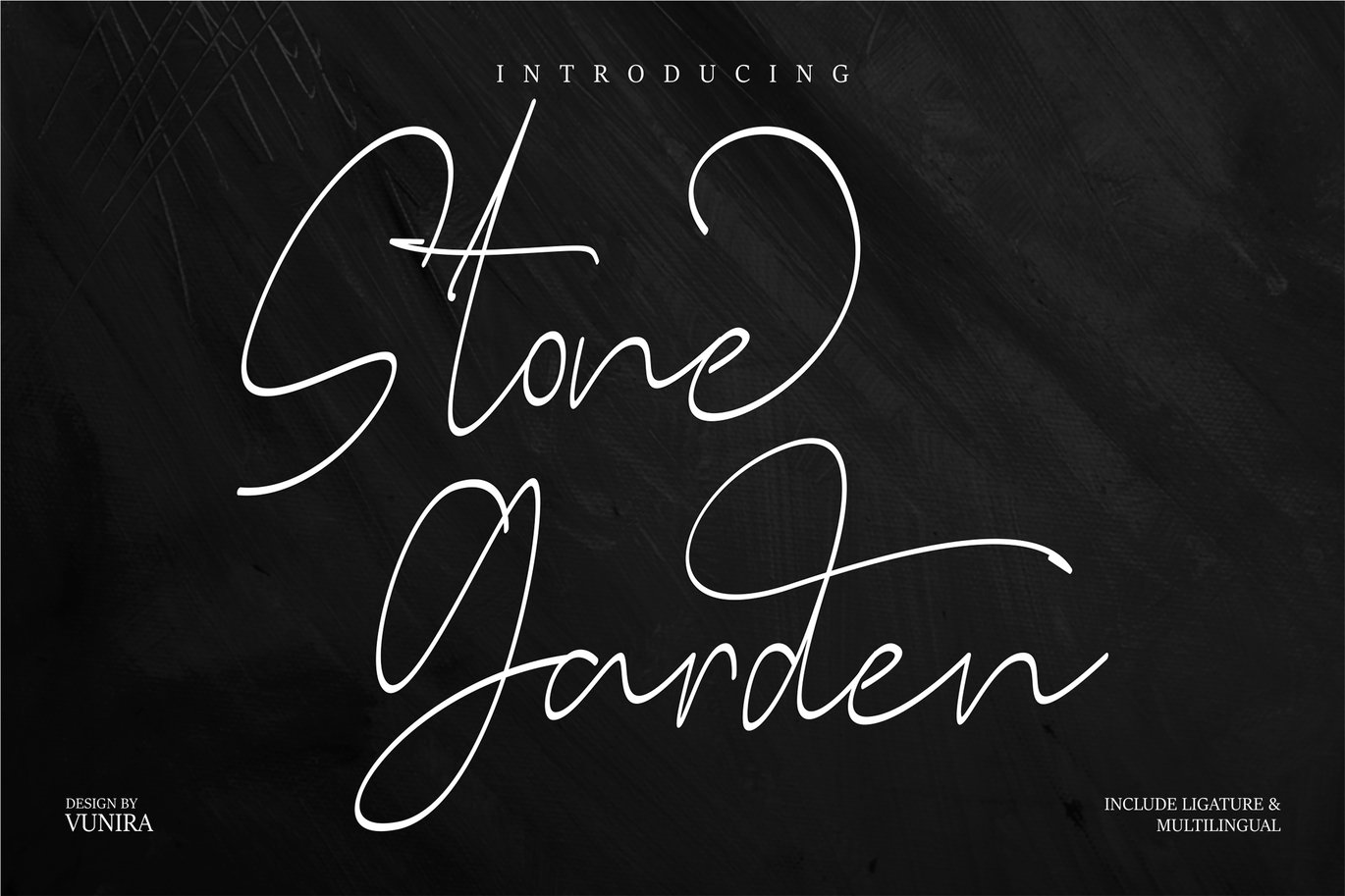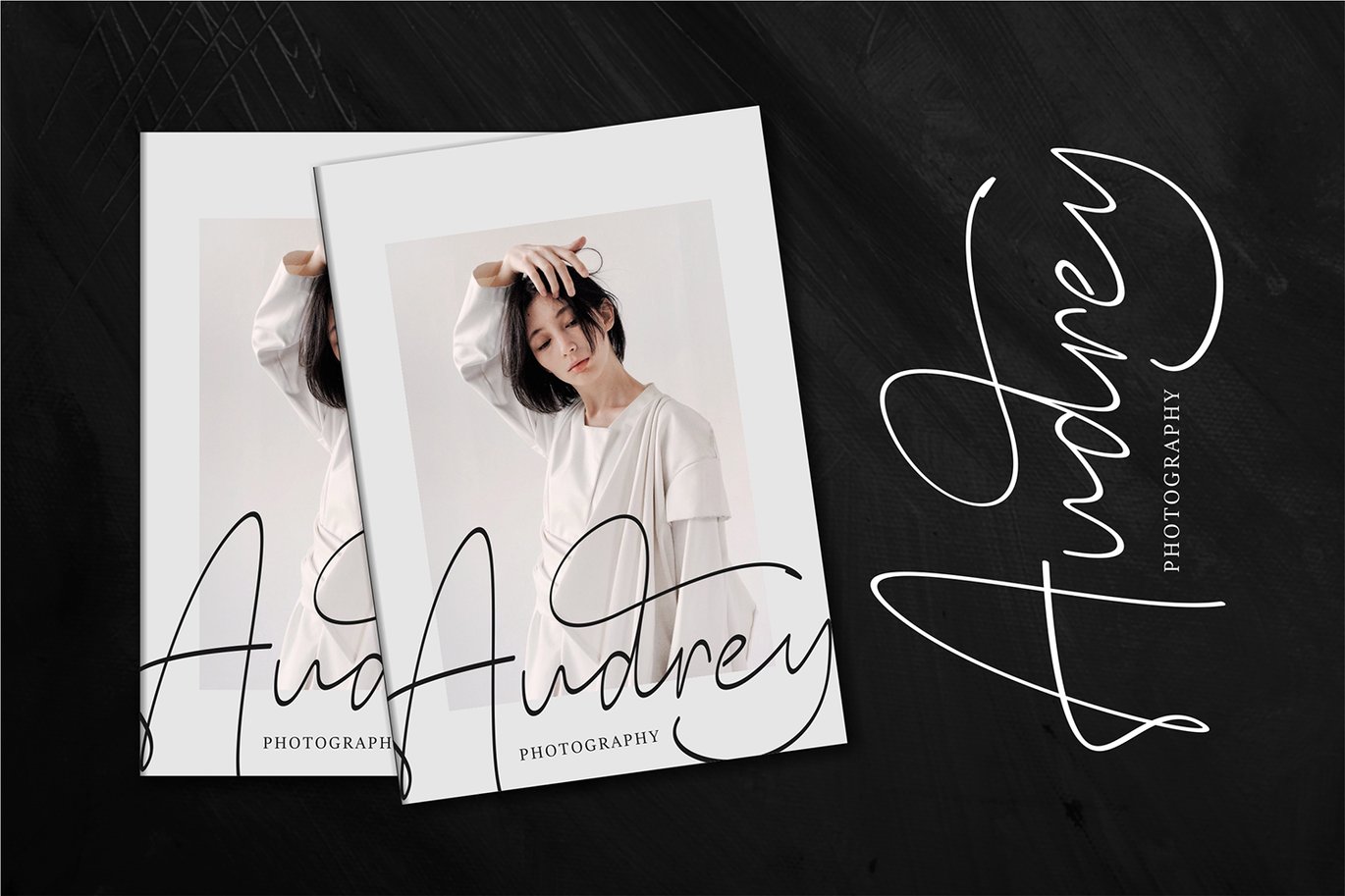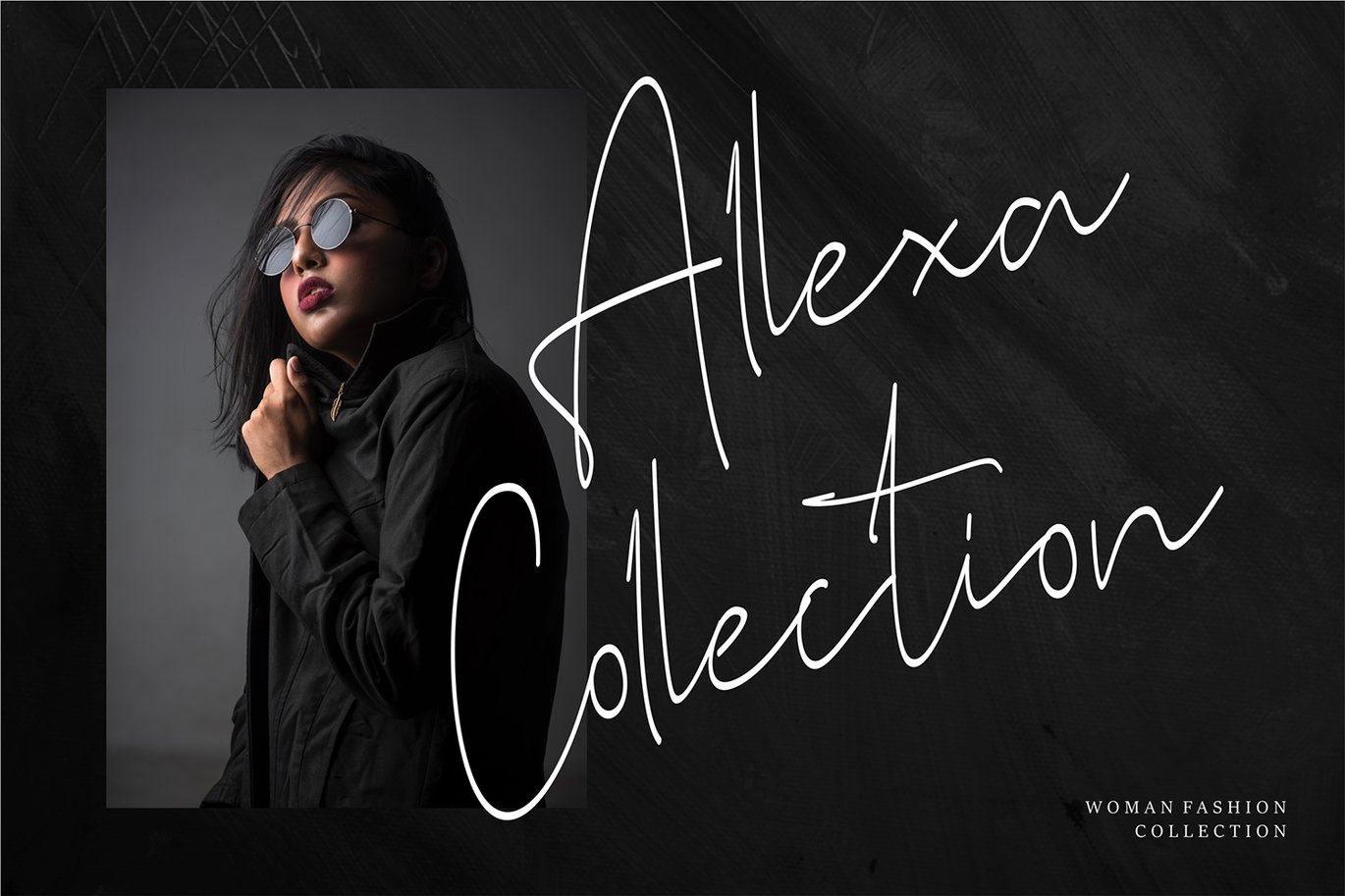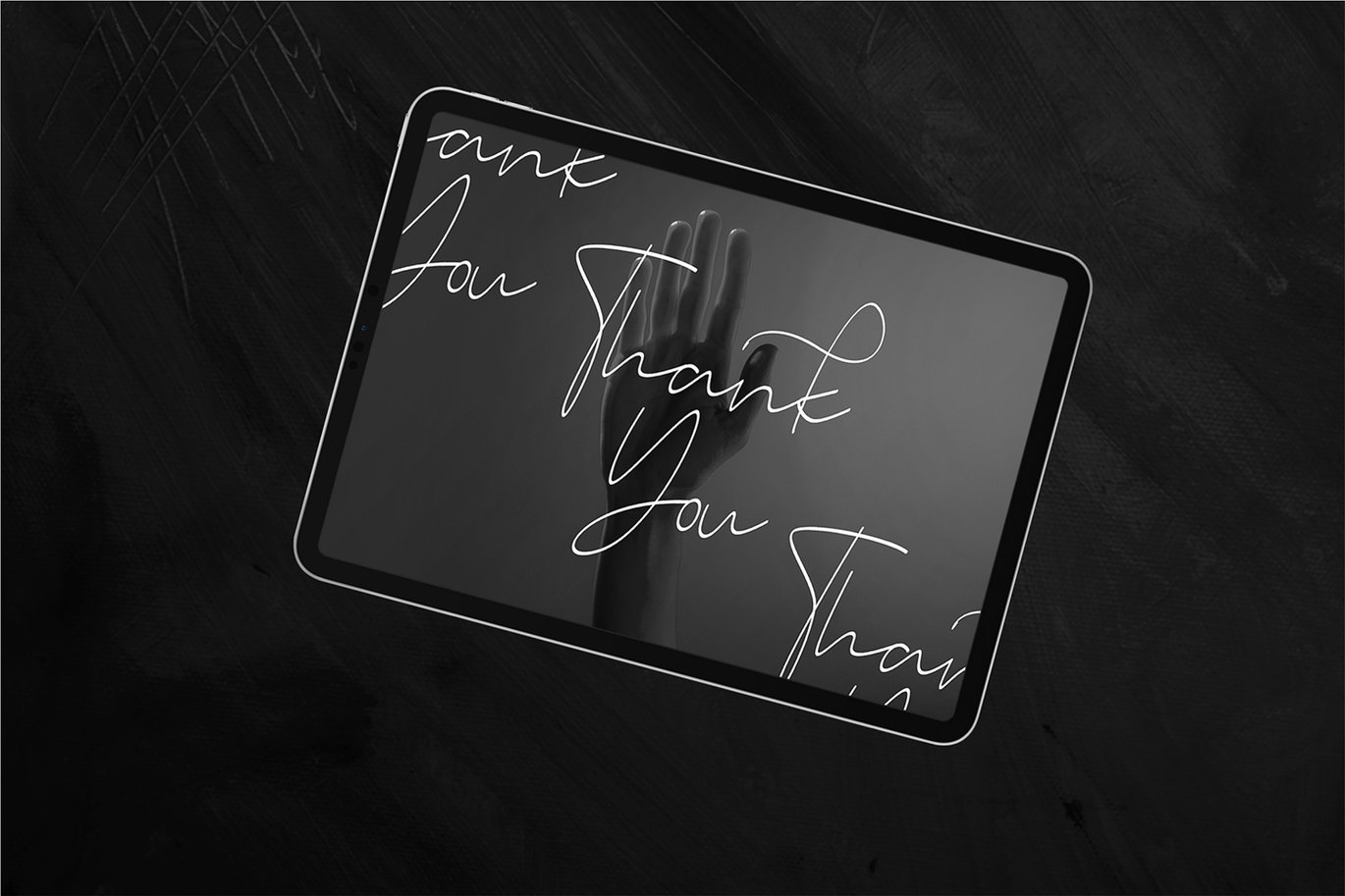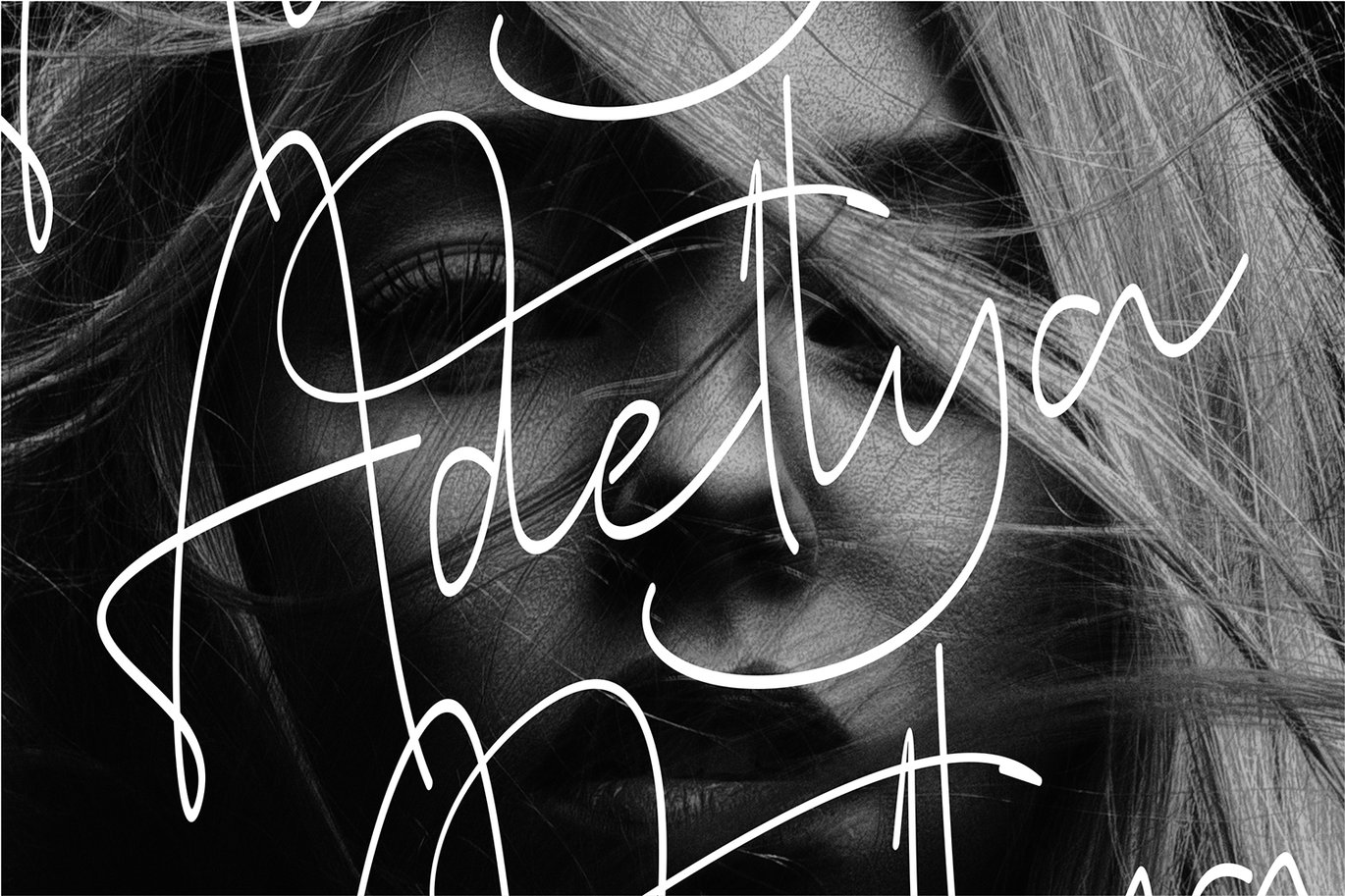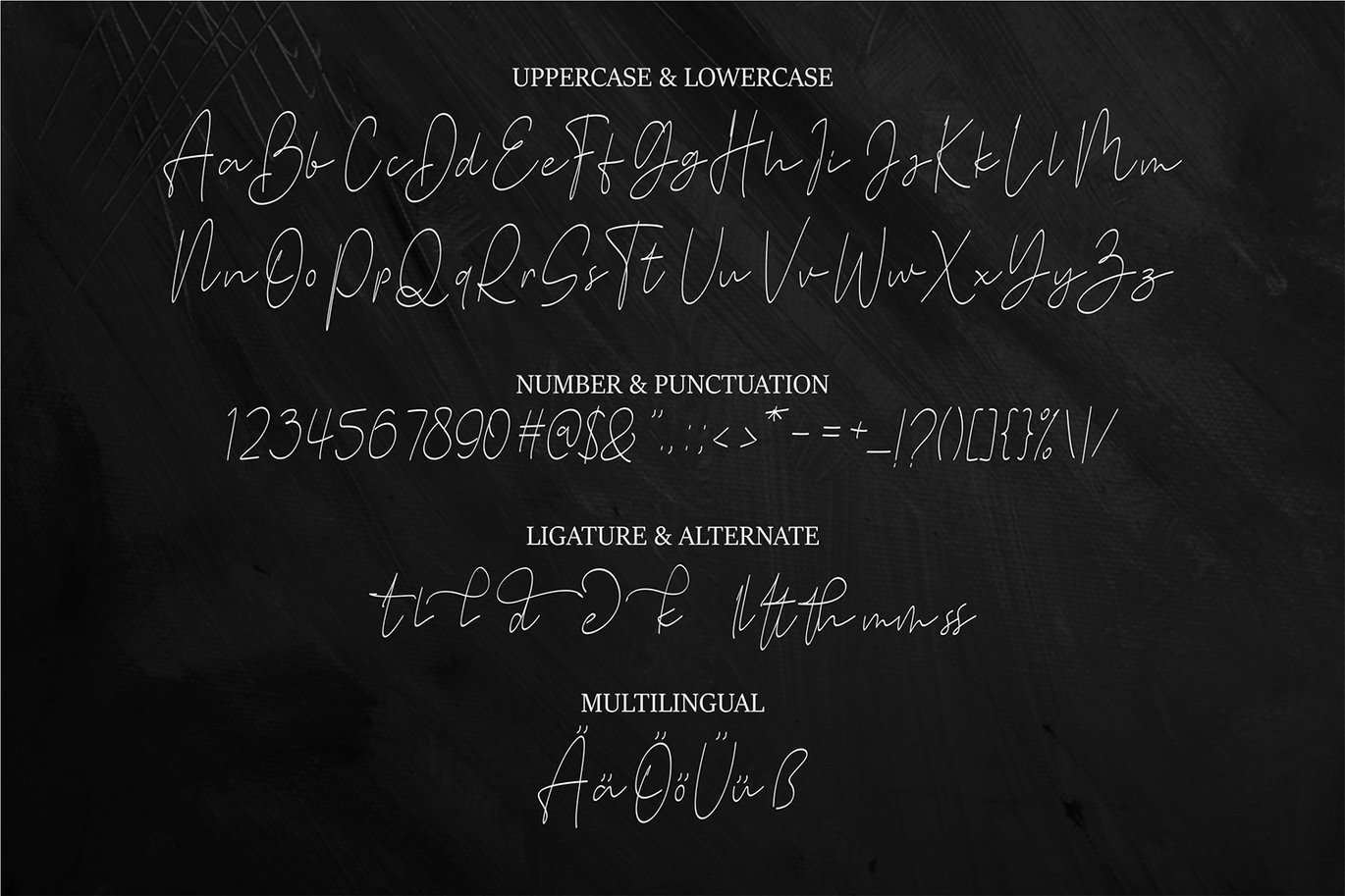
Stone Garden | Script Font
Stone Garden | Script Font with a calligraphy style, So beautiful on invitation like greeting cards, branding materials, business cards, quotes, posters, and more!